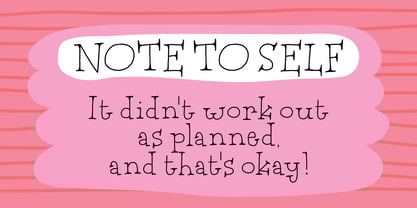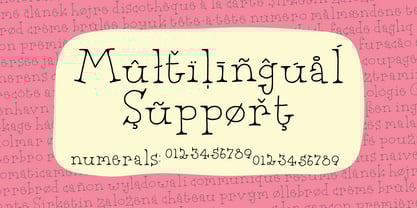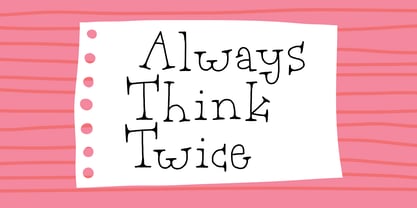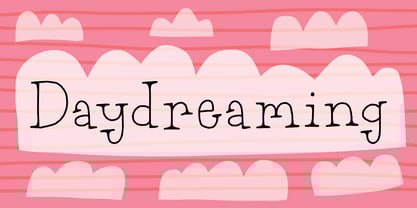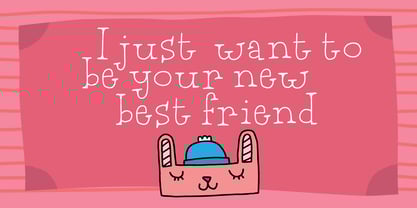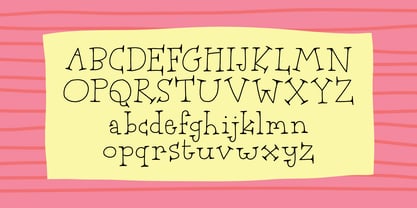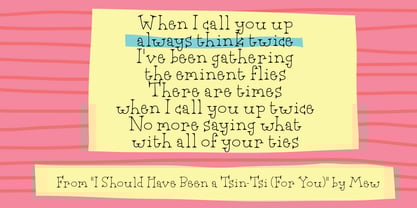
Always Think Twice
by PizzaDude.dk
The Always Think Twice Font Family was designed by Jakob Fischer and published by PizzaDude.dk. Always Think Twice contains 2 styles and family package options. More about this family
Always Think Twice - a good old advice, not to be hasty about important decisions. It is also a sentence taken from “Billie Jean” by Michael Jackson - and even from a lesser known song “I should have been a Tsin-Tsi (for you)” by a danish band called Mew. With this font I concentrated on making legible, yet obviously handmade serif font. Not focusing on keeping a steady x-height, but keeping the stroke width slightly the same - the serifs is another story, because they vary in length and size, but never overdoing the organic look.
Designers: Jakob Fischer
Foundry: PizzaDude.dk